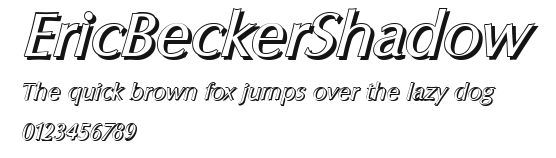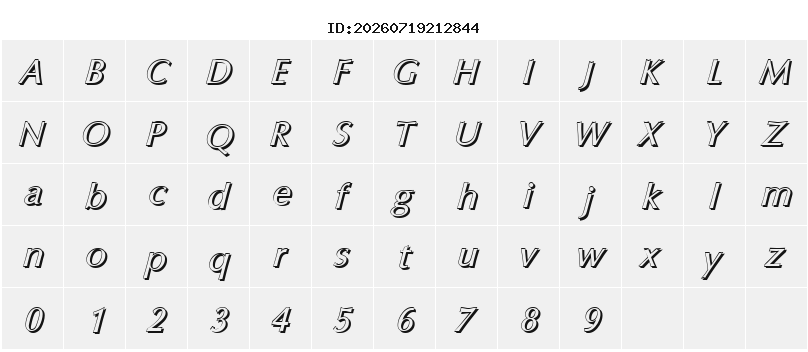
• Font Name: EricBeckerShadow
• Font ID: Alts:EricBeckerShadow-Italic
• Full Font Name: EricBeckerShadow-Italic
• Version: 1.0 Wed May 03 21:28:13 2000
• PostScript Name: EricBeckerShadow-Italic
About EricBeckerShadow.ttf
EricBeckerShadow.ttf is a modern, elegant sans-serif font designed for ultimate readability and visual harmony. Perfect for branding, headlines, web design, and print materials.